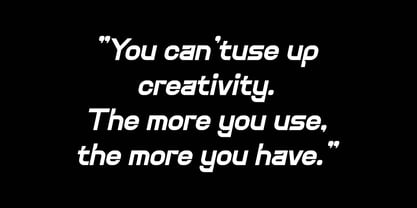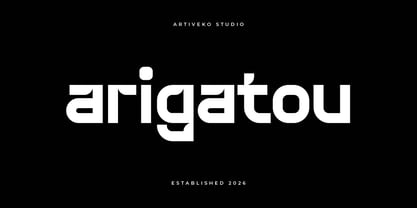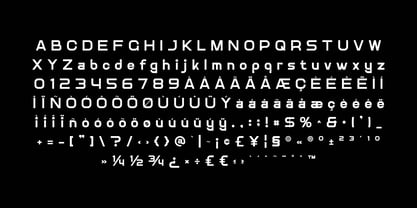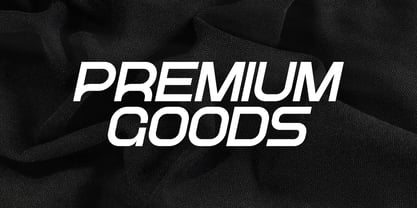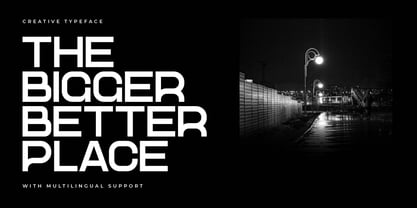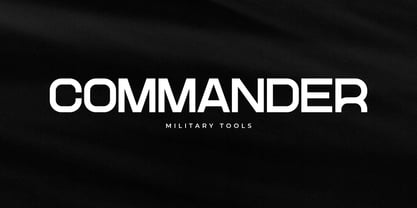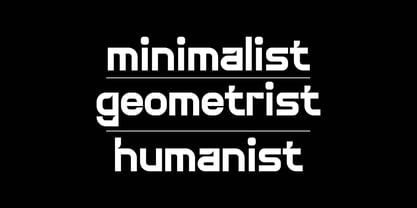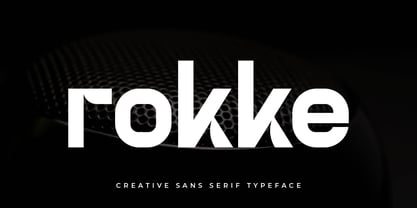
Rokke
by Artiveko
The Rokke Font Family was designed by Iwan Alwan and published by Artiveko. Rokke contains 2 styles and family package options. More about this family
Rokke is a modern creative sans serif typeface that embodies bold character and contemporary style. With its clean structure and distinctive details, Rokke infuses a fresh and slightly edgy personality into modern design. Ideal for branding, logos, posters, packaging, social media graphics, and creative visual identity, Rokke ensures a strong presence while remaining versatile and highly readable. Its balanced proportions and modern form empower designers to craft impactful layouts that are both professional and expressive. Whether you're developing creative studios, startup brands, or modern campaigns, Rokke provides a confident typographic voice that truly stands out. Rokke is not just a font — it’s a powerful creative tool for contemporary design.
Artiveko is a font design team based in Indonesia, comprised of several talented font designers who commenced their careers in the font design industry in 2020. With a dedicated focus on crafting fonts, the team members bring their collective expertise and passion to every project they undertake. Situated in Indonesia, Artiveko draws inspiration from the vibrant cultural landscape of the region, infusing their creations with unique flavors and aesthetics.The team's font collection encompasses a diverse range of styles, including serif, sans serif, handwritten, and script typefaces. Each typeface is meticulously crafted to meet the demands of modern design while offering versatility and functionality across various applications. Whether it's the classic elegance of serif fonts, the contemporary appeal of sans serif designs, the personal touch of handwritten scripts, or the expressive flourishes of script fonts, Artiveko ensures that every font reflects their dedication to quality and innovation.Artiveko's fonts have garnered recognition and acclaim, with their works being featured on prominent social media platforms like Creative Market. Through these platforms, the team has been able to connect with a global audience of designers and typographers, further amplifying their reach and influence in the industry. Their fonts are celebrated for their impeccable craftsmanship, attention to detail, and ability to elevate design projects with style and sophistication.As Artiveko continues to evolve and expand its font collection, the team remains committed to pushing the boundaries of typography and setting new standards of excellence. With a relentless focus on creativity, innovation, and collaboration, Artiveko strives to inspire and empower designers around the world with their distinctive and versatile font designs.